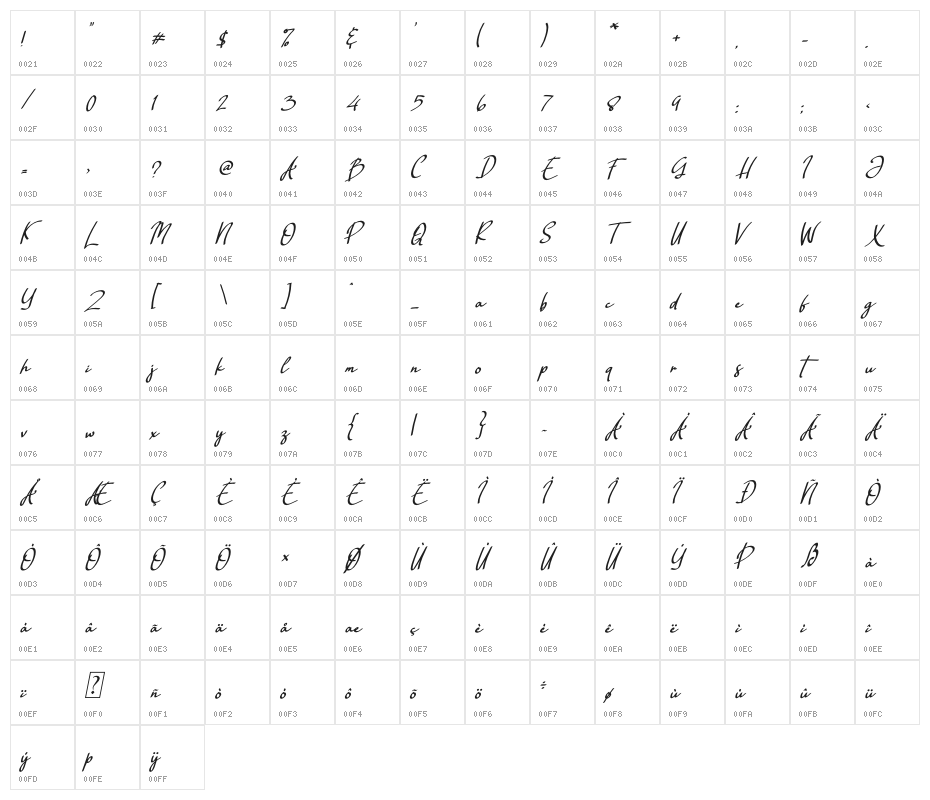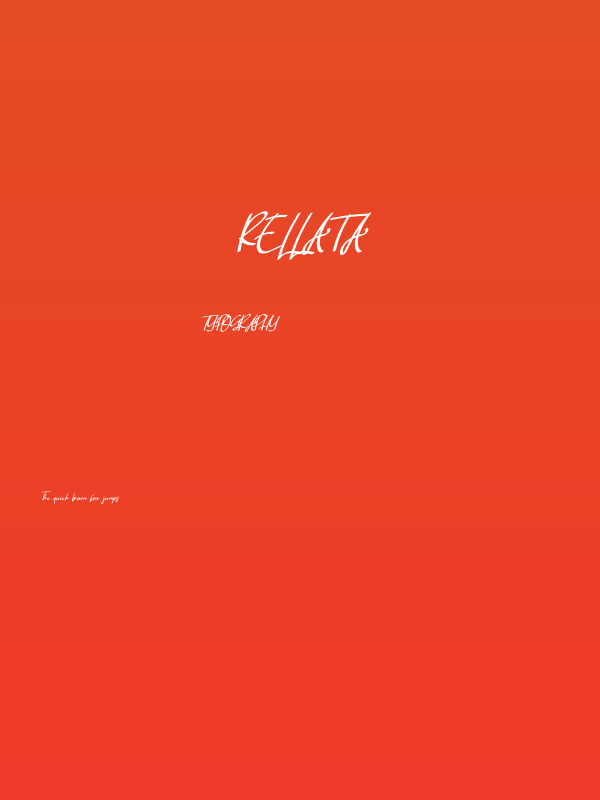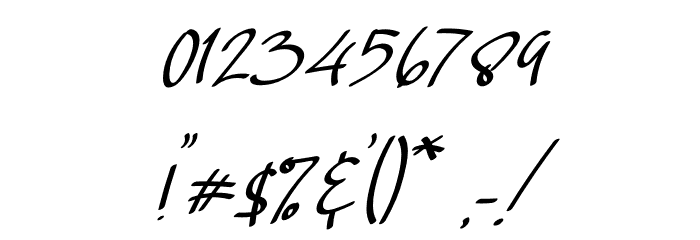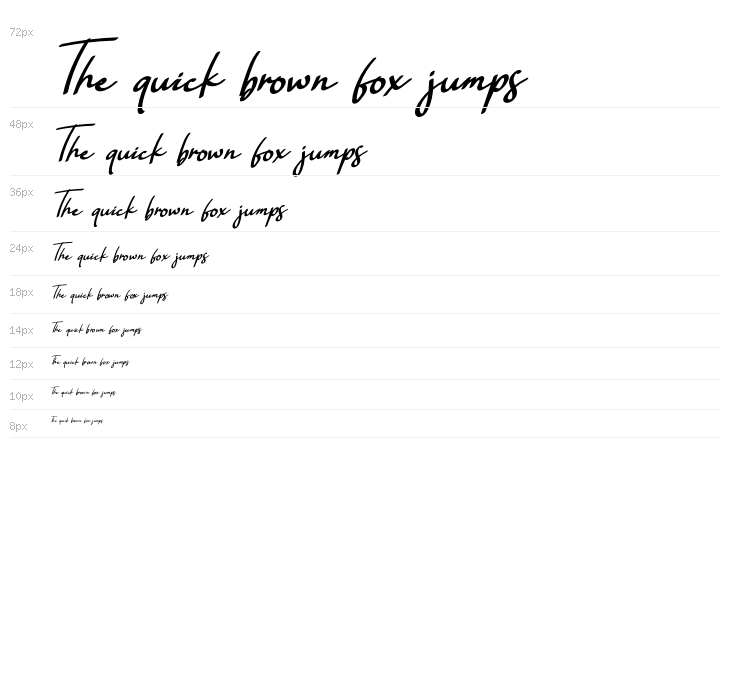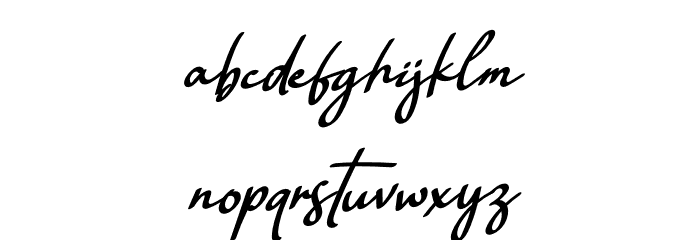
Rellata Font
Rellata Description
This font exudes a dynamic and expressive style, characterized by its fluid and cursive script. The letters are interconnected with a smooth flow, giving it an elegant and artistic appearance. The uppercase letters are bold and slightly slanted, while the lowercase letters maintain a consistent rhythm, enhancing readability. The numerals and special characters follow the same cursive theme, adding to the overall cohesive look. This font is ideal for projects that require a personal touch, such as invitations, greeting cards, or branding materials that aim to convey a sense of creativity and sophistication.
| Proposed Projects | Ideal for invitations, greeting cards, branding, and creative projects. |